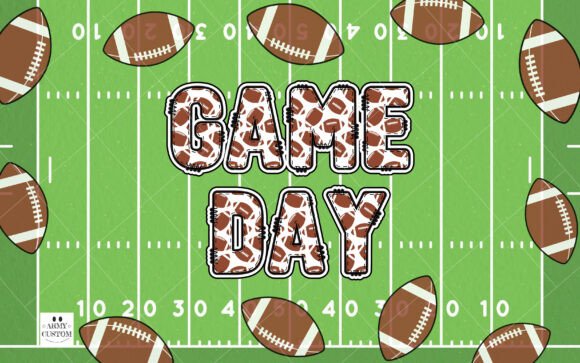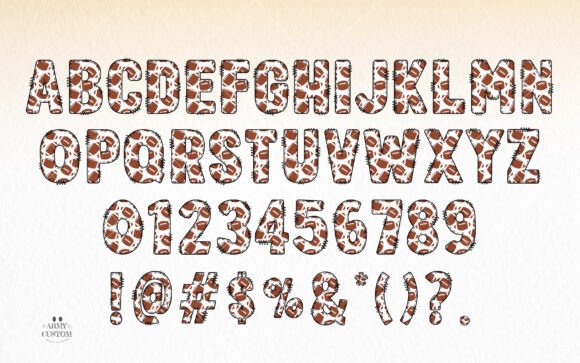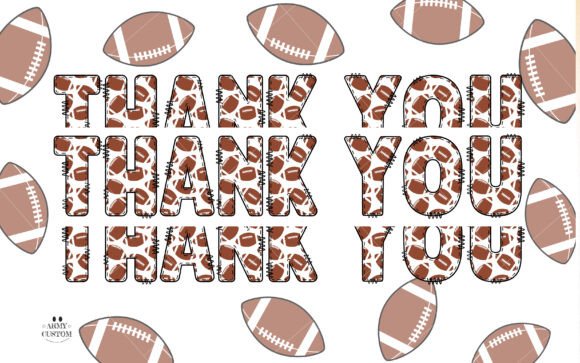
Unleash the Spirit of the Gridiron with the American Football Font
Imagine you’re standing in a packed stadium, the energy of the crowd coursing through your veins as the quarterback drops back to pass. The thrill of the game is palpable, and you can’t help but feel the rush of adrenaline as the players clash on the field. That’s the essence of American football, and it’s the same energy that’s infused into the American Football Font.
Conceived with a deep passion for the sport, this innovative font combines design and sport in a way that’s both dynamic and competitive. For designers, it’s a valuable tool for communicating strength, agility, and unyielding spirit – making it a quintessential choice for any project that requires a bold and athletic feel. With its unique blend of creativity and passion, the American Football Font is a must-have for anyone looking to tap into the excitement of the gridiron.
American Football Font Key Features
- Unique Characteristics: Features a bold, sans-serif design with distinctive letterforms, evoking the spirit of American football.
- Character Set: Includes a comprehensive set of characters, including uppercase and lowercase letters, numbers, and punctuation marks.
- Kerning and Ligatures: Includes advanced kerning and ligature pairs to ensure smooth text flow and improved readability.
Design Review: American Football Font
I recently had the chance to work with the American Football Font, and I’d like to share my honest thoughts on this design.
- The font’s bold and energetic feel perfectly captures the spirit of American football.
- The bold weights and dynamic letterforms make it ideal for use in logos, signage, and other display typography.
- The font’s legibility is also impressive, especially at larger sizes.
- The font’s limited character set and lack of language support may be a concern for some users.
- The font’s design, while bold and eye-catching, may not be suitable for body text or other situations where readability is paramount.
Overall, I think the American Football Font is a great choice for designers looking to add a touch of energy and excitement to their projects. While it may not be the most versatile font, its unique design and bold feel make it perfect for certain applications. With some limitations in mind, I’d definitely consider using this font again in the future.
Use the American Football Font to create a bold and eye-catching design.
Common use cases include creating team logos, jerseys, and sports-themed graphics.
Alternatives to American Football Font
The American Football Font is a popular font known for its bold and block-like appearance. However, designers often seek alternative fonts to add variety and style to their designs. Here are three alternatives to consider:
1. Rockwell Font
The Rockwell Font is a serif font that resembles a traditional newspaper font. It has a similar bold and block-like appearance to the American Football Font, but with a more classic and elegant feel. Use Rockwell Font for designs that require a sense of history and tradition.
Comparison: Rockwell Font is more elegant and refined compared to the American Football Font, which is more bold and playful.
2. Impact Font
The Impact Font is a sans-serif font that is known for its bold and dramatic appearance. It has a similar sense of drama and importance to the American Football Font, but with a more modern and edgy feel. Use Impact Font for designs that require a sense of excitement and energy.